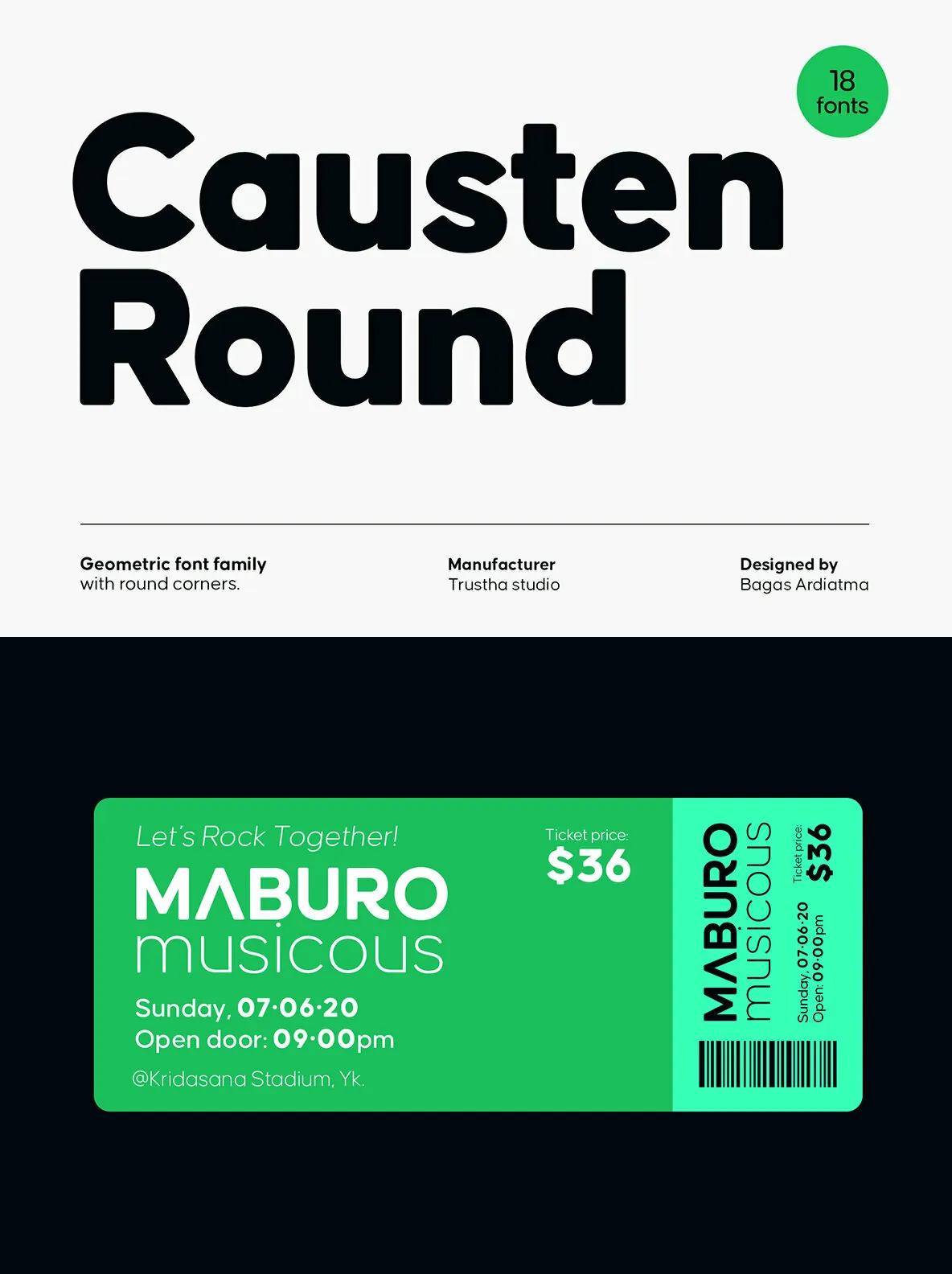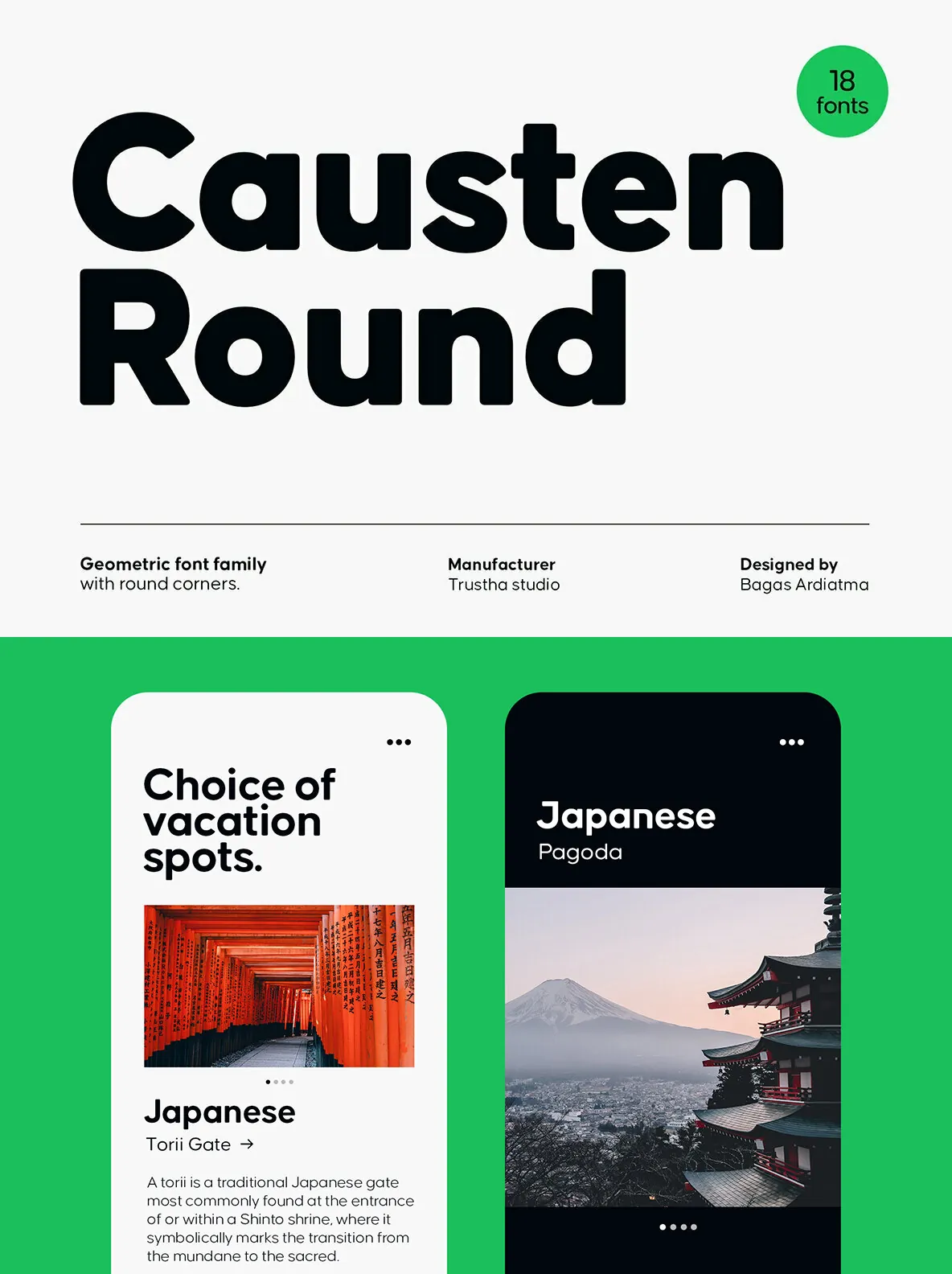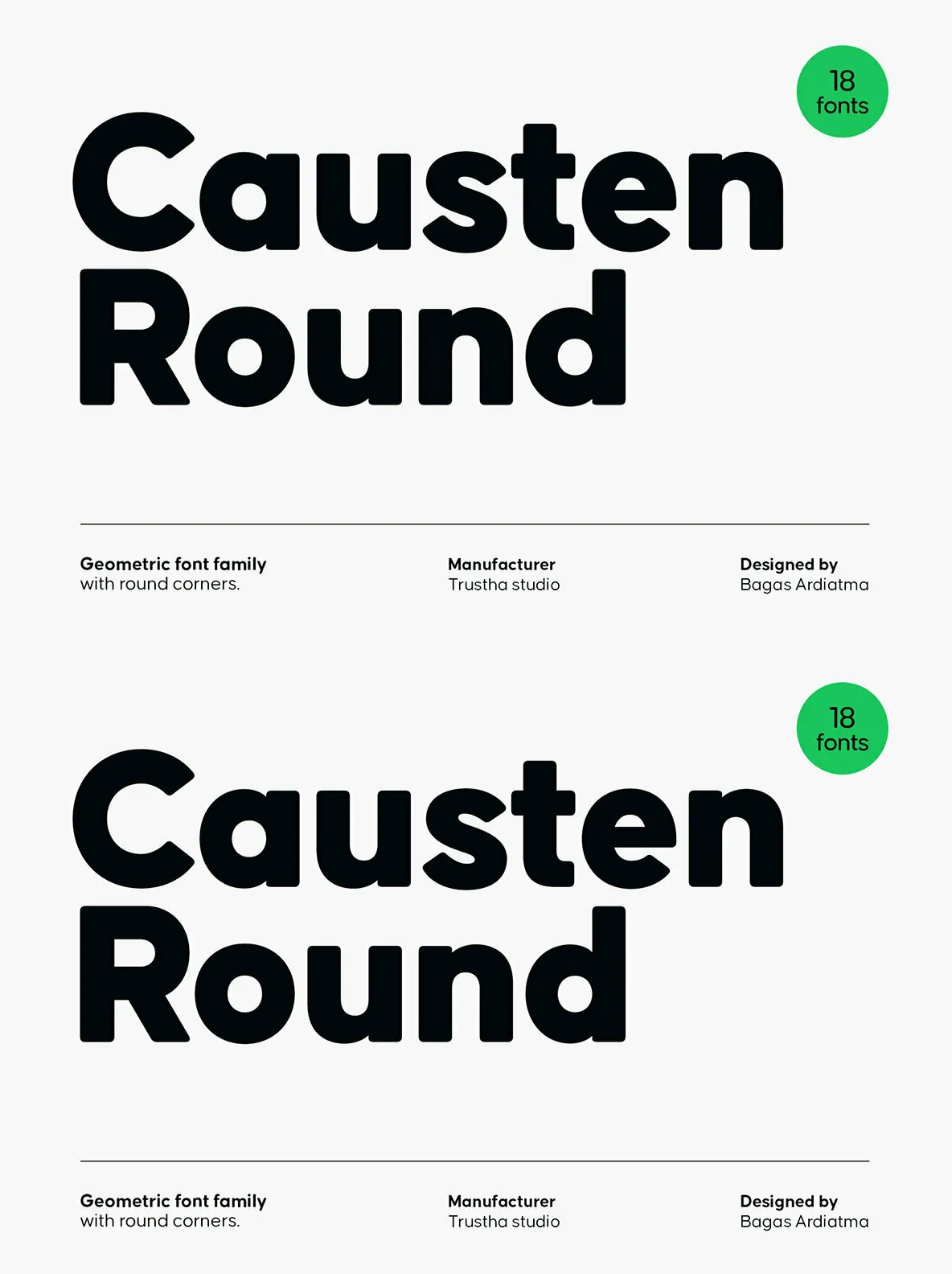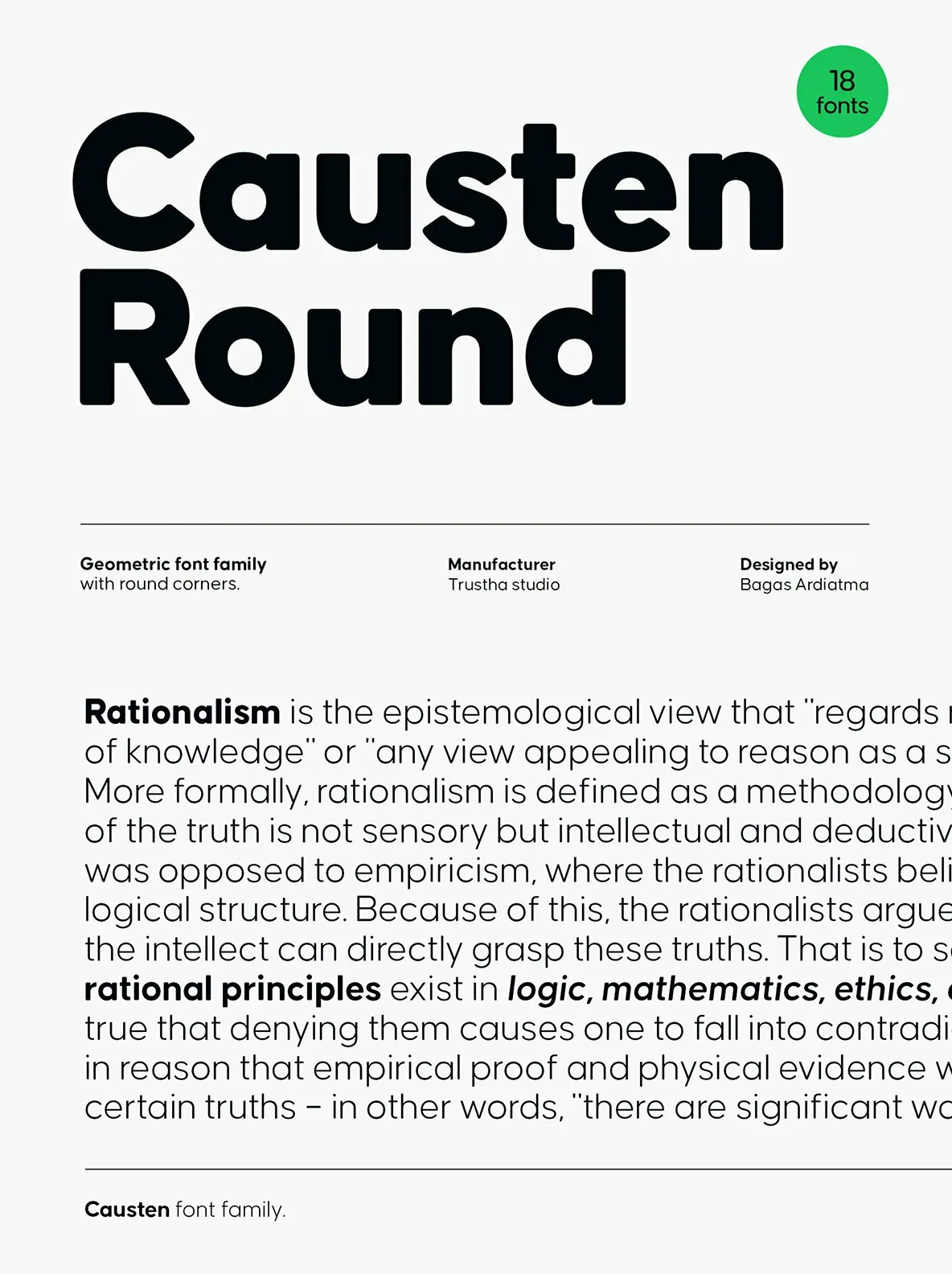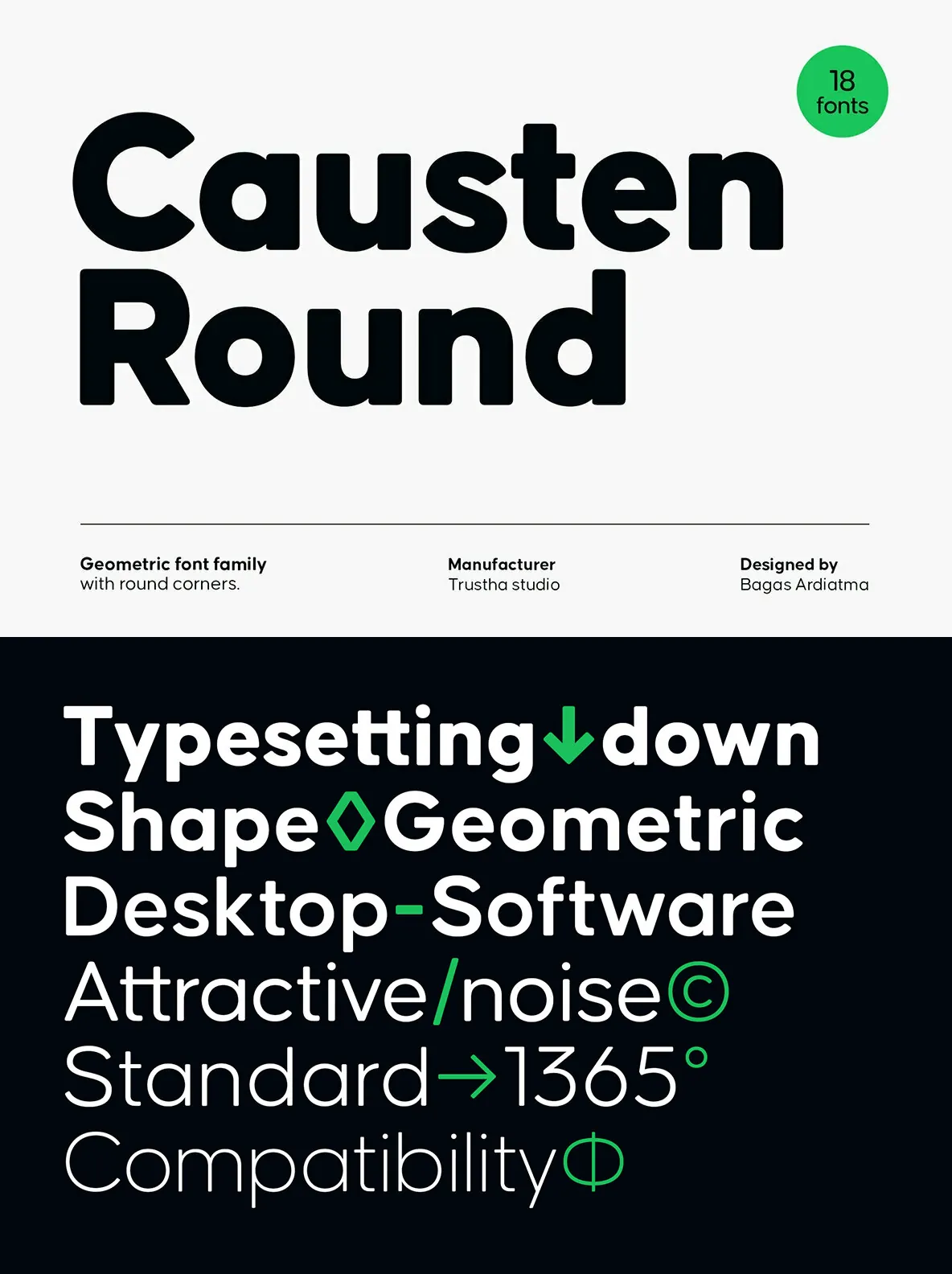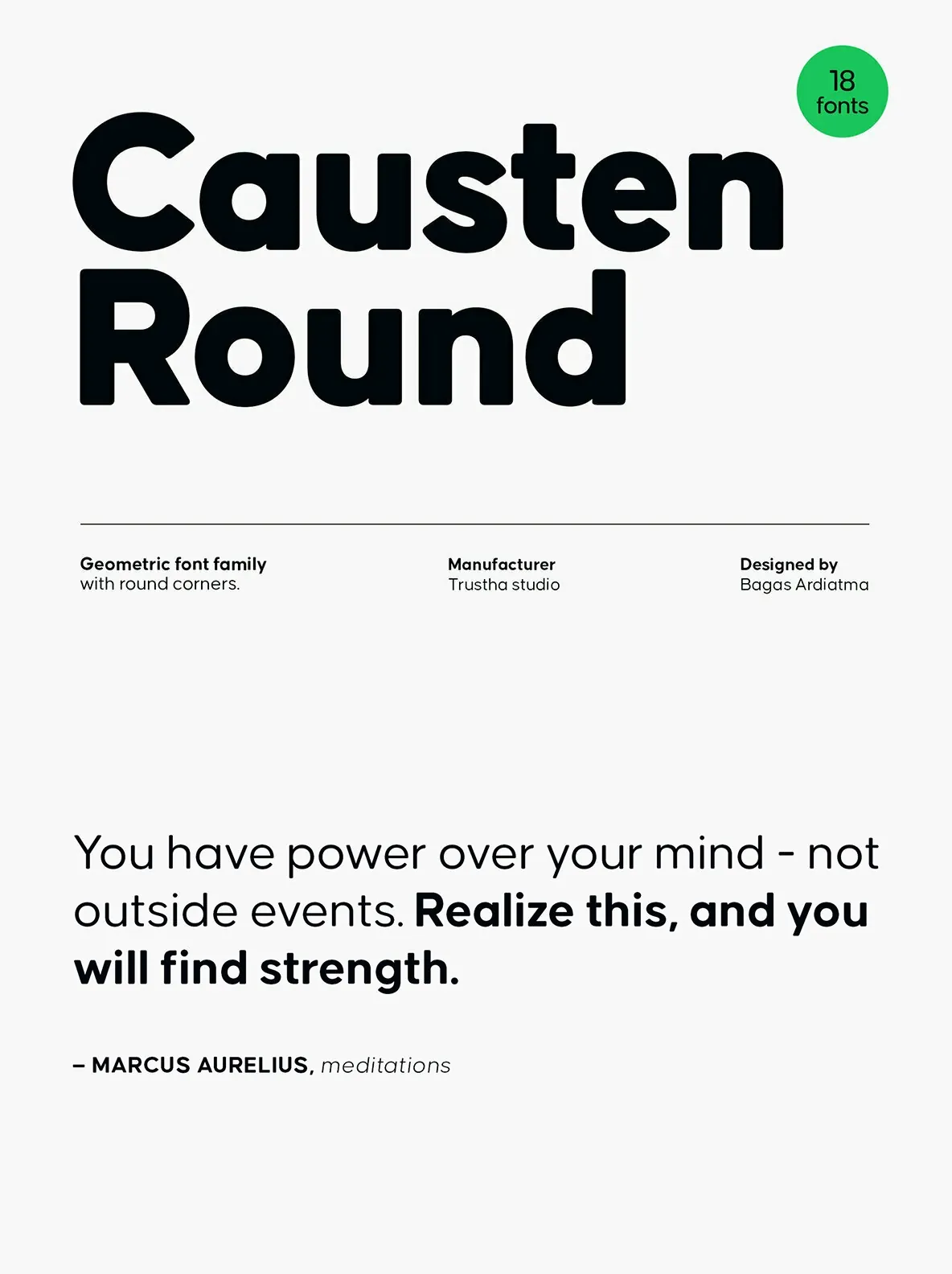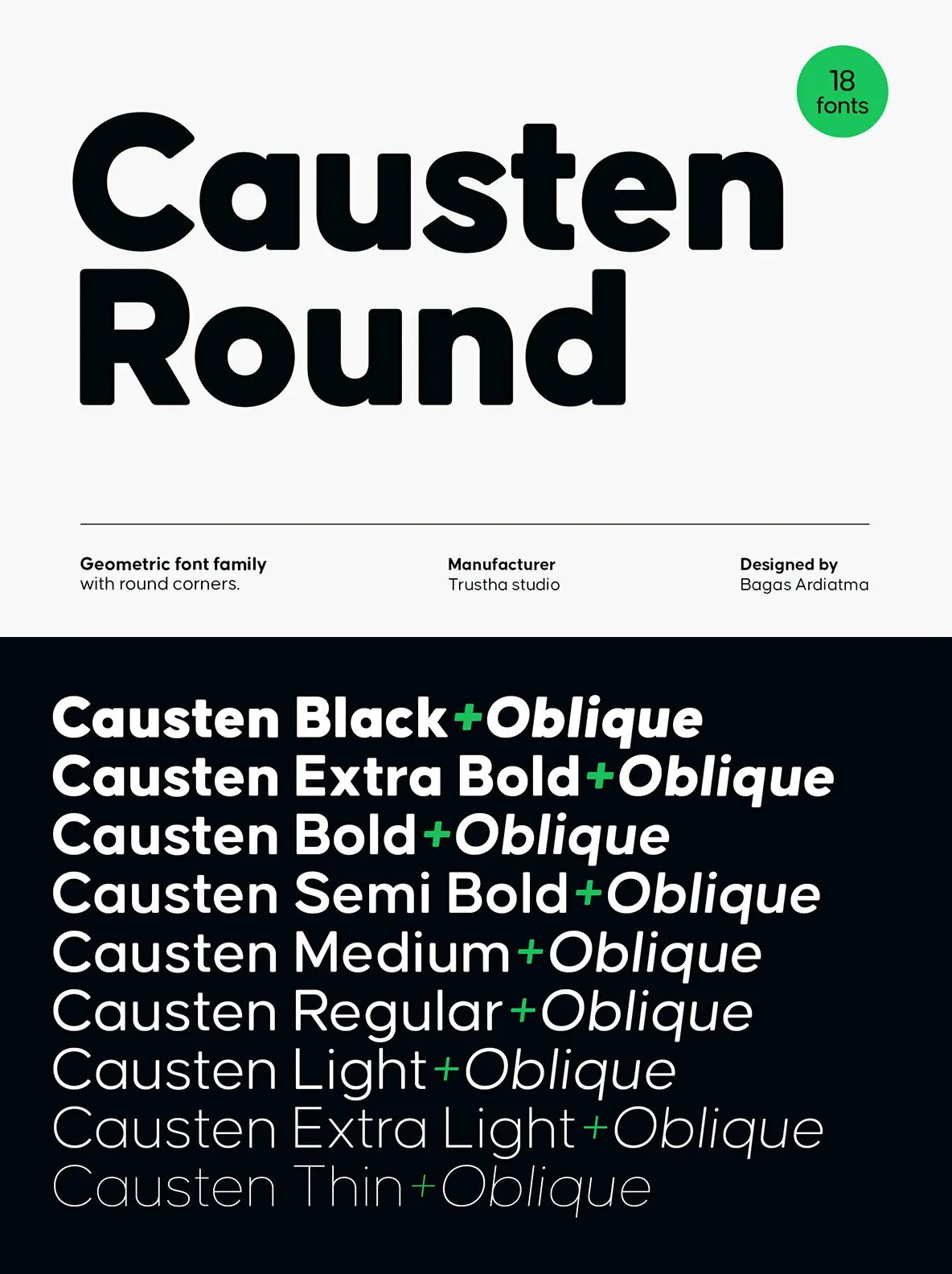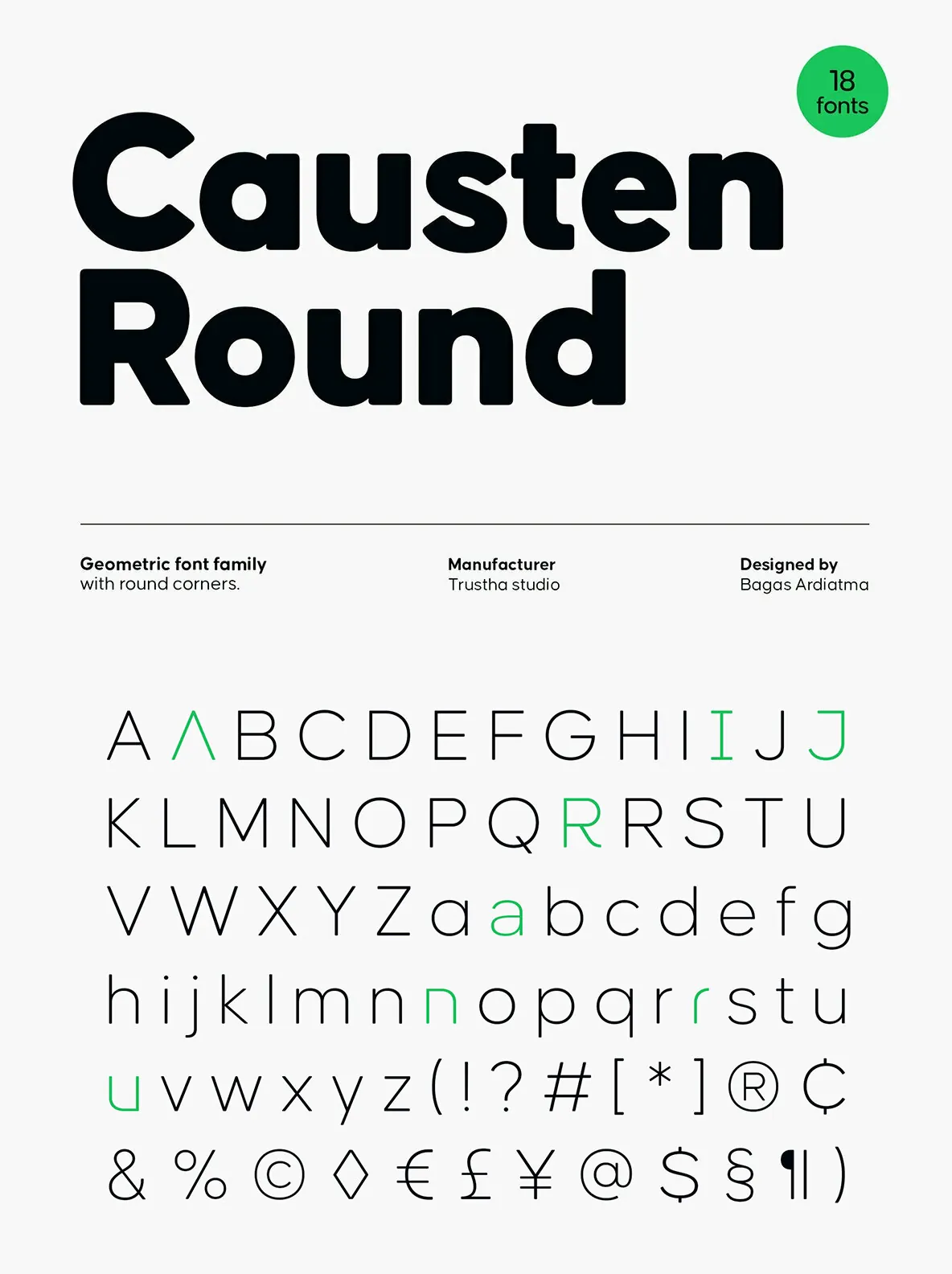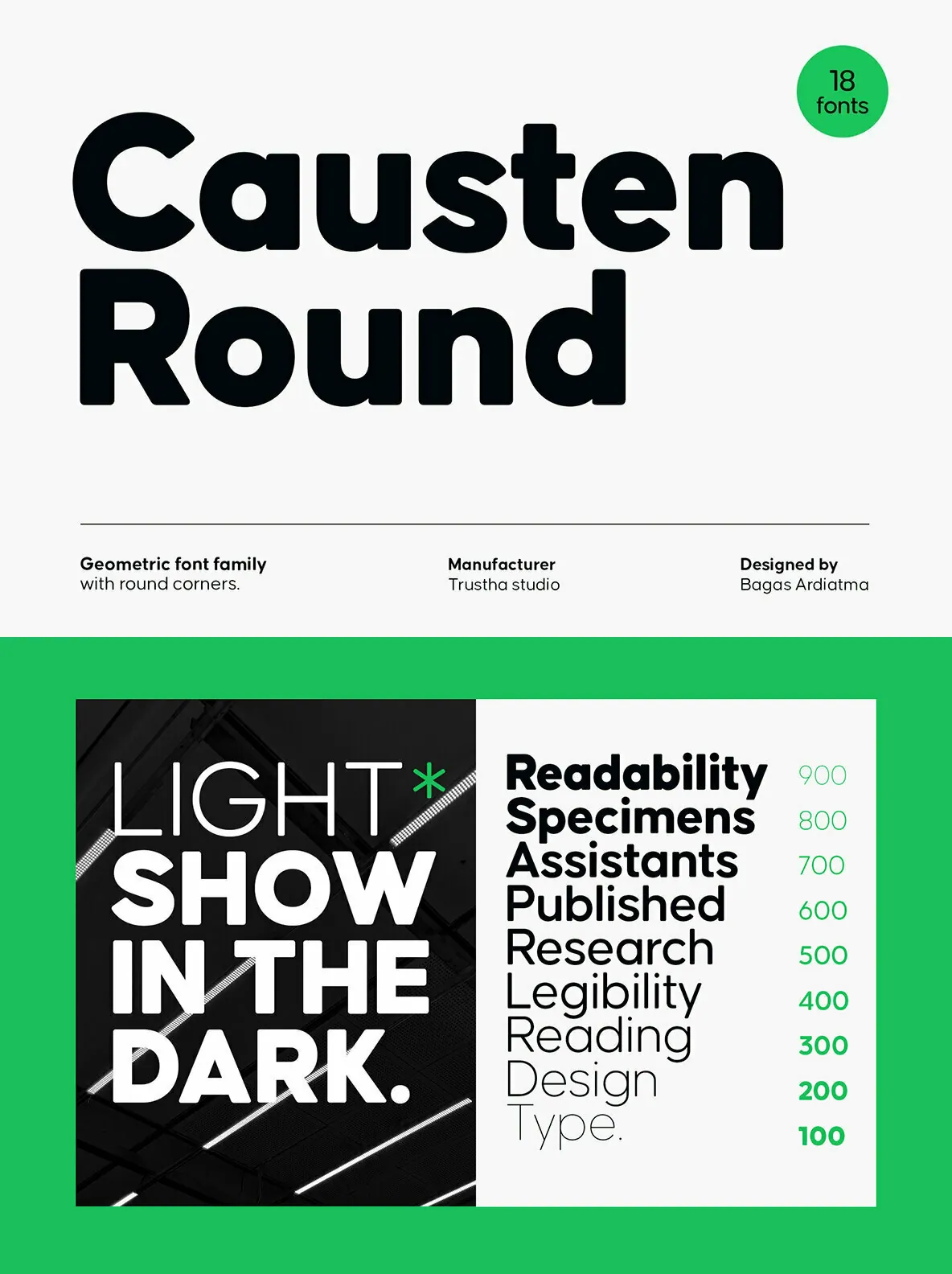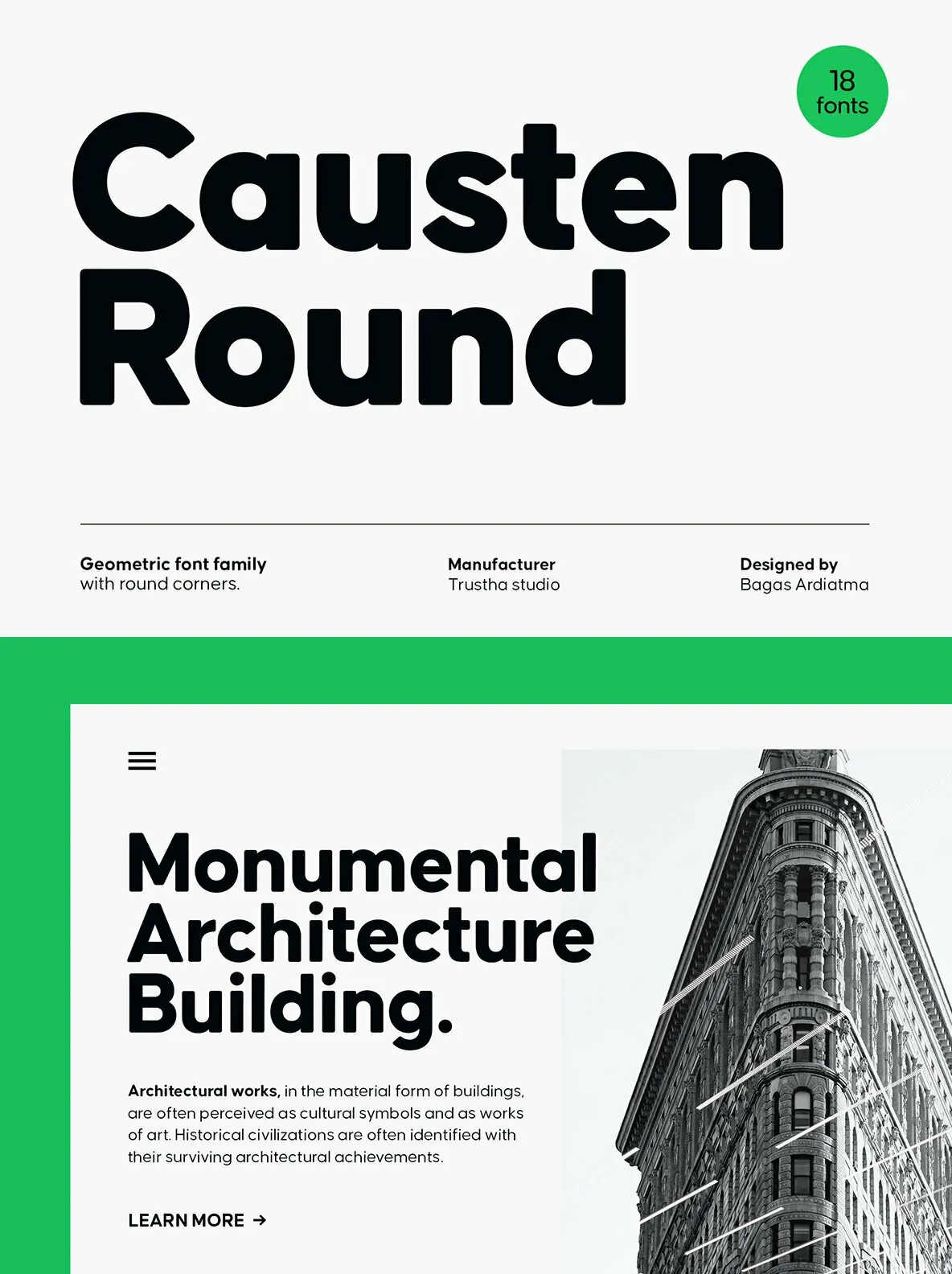
Causten Round — Precision, Softened
Causten Round is a geometric sans serif font family with round corners. It keeps a rational approach in every form. The design stays logical and carefully balanced, with sharp, clear counters and consistent structure. The result is a clean, neat, and precise shape that reads well across a wide range of uses.
Causten Round is a rounded version of Causten. It comes with 9 weights and a matching oblique, making it 18 styles. This broad range makes it a reliable choice for creative projects that need a contemporary rounded sans serif. It also includes alternative glyphs, adding subtle variety when you need a different tone without leaving the family.